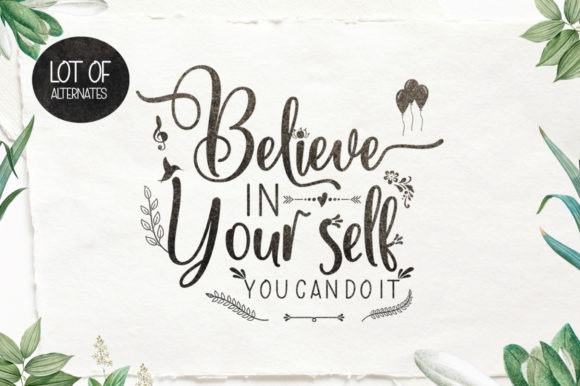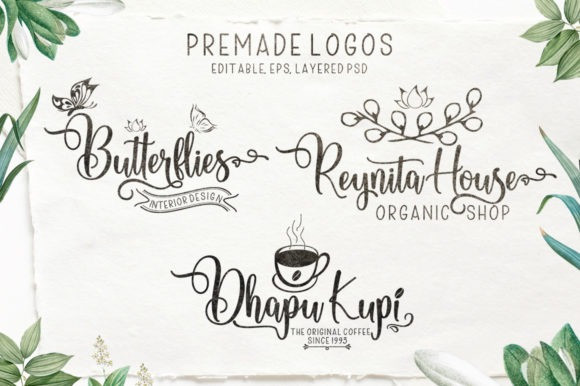
Butter Sweetish Font Trio
Butter Sweetish Font is a lovely trio font (script, sans serif and dingbats). Masterfully designed to become a true favorite, this font has the potential to bring each of your creative ideas to the highest level!
ButterSweetish is also PUA encoded which means you can access all of the glyphs and swashes with ease!